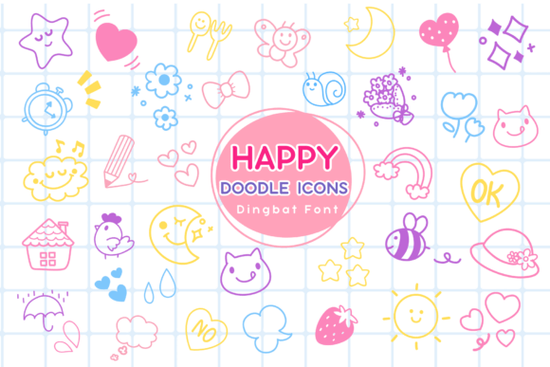
Designers, crafters, and small business owners often look for unique ways to add personality to their projects. The Happy Doodle Icons Font is a great tool for anyone looking to bring a touch of fun and creativity into their work. This font features a collection of hand-drawn doodles that include hearts, stars, clouds, flowers, animals, and other cheerful symbols. It’s perfect for planners, stickers, diaries, kids’ projects, social media posts, and a variety of creative crafts.
Whether you're working on a personal project or creating products for clients, the Happy Doodle Icons Font can help you express your style in a more engaging way. The playful nature of the icons makes them ideal for adding a friendly and approachable feel to any design. You can use them to decorate greeting cards, add visual interest to presentations, or even create custom stickers for your brand.
The font is easy to use and works well with most design software. It’s especially useful for those who want to create content that stands out without needing advanced design skills. The simplicity of the doodles allows them to fit into a wide range of styles, from minimalist to colorful and detailed. This versatility makes it a valuable addition to any designer’s toolkit.
What Makes This Font Unique?
One of the standout features of the Happy Doodle Icons Font is its hand-drawn aesthetic. Unlike many digital fonts that feel rigid or uniform, this one has a warm, organic look that feels more personal. The imperfections in the drawings add character and make each icon feel like it was created by hand. This quality can be especially appealing for businesses or individuals who want to convey a sense of authenticity and creativity.
The font also includes a variety of symbols that are commonly used in everyday life. From simple shapes like circles and triangles to more complex illustrations like animals and objects, there’s something for every project. The range of icons ensures that you won’t run out of ideas when working on different designs. Whether you’re making a calendar, a children’s book, or a social media graphic, you’ll find elements that fit your needs.
Who Can Benefit From This Font?
This font is particularly useful for designers who work with clients in the education, parenting, or lifestyle industries. It can also be a great resource for print-on-demand sellers looking to create unique products that stand out in a competitive market. Small businesses that want to add a personal touch to their branding may find the font helpful in creating logos, packaging, or promotional materials.
Crafters and hobbyists will also appreciate the font’s flexibility. It can be used in scrapbooking, handmade cards, and other DIY projects. The playful style encourages creativity and makes it easier to experiment with different layouts and color schemes. For those who enjoy working with children, the font can be a fun way to introduce young artists to design and illustration.
How to Use the Happy Doodle Icons Font
Before finalizing your design, take a moment to review how the icons look in different contexts. Testing them in various sizes and backgrounds can help you ensure they’re clear and effective. If you’re unsure about how to use them, consider sharing your work with others to get feedback and improve your results.
By incorporating the Happy Doodle Icons Font into your workflow, you can add a fresh and creative element to your designs. Whether you’re working on a personal project or a professional assignment, this font offers a fun and practical way to express your ideas visually.